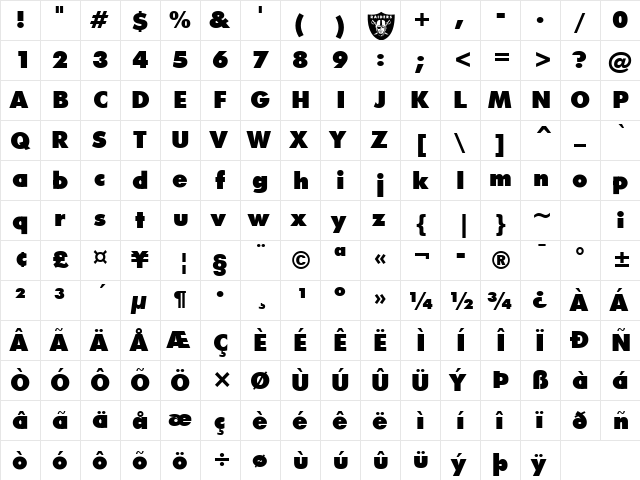
Raiders Font Preview
Raiders Raiders
Raiders Font Details
Design Context for Raiders Typeface
Raiders takes a measured approach to typography — its balanced proportions and neutral character make it a reliable workhorse for both digital and print work.